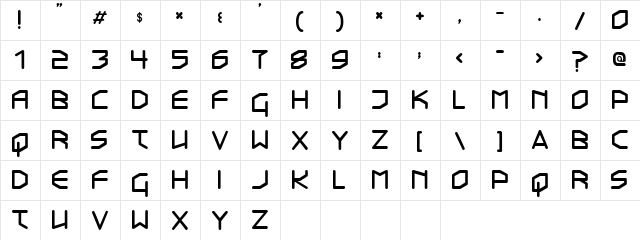
Transistor 2.15 Regular
Design Context for Transistor 2.15 Typeface
Transistor 2.15 offers clean, dependable letterforms without strong stylistic allegiance, making it a practical choice for designers who need flexibility.
Pro Tip: Use Transistor 2.15 in both headline and body roles to test its range before committing to a single application.